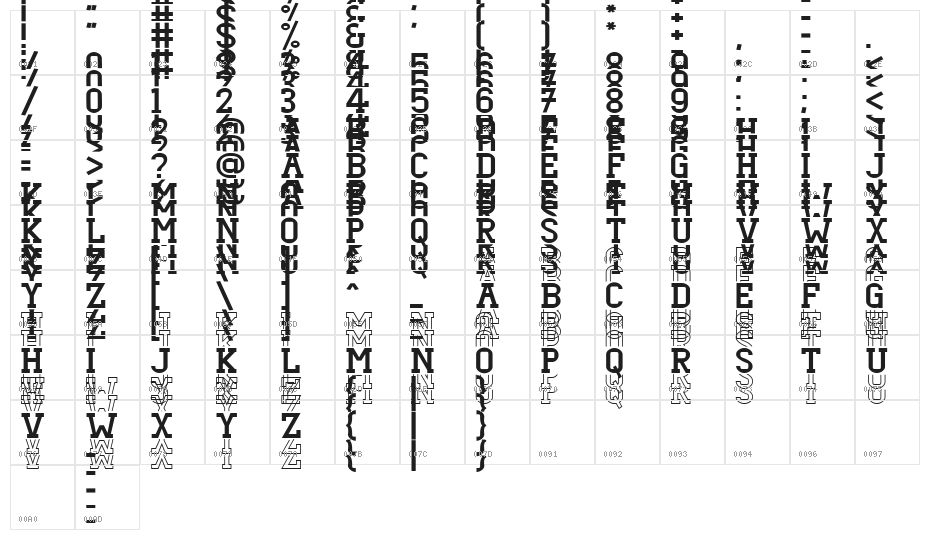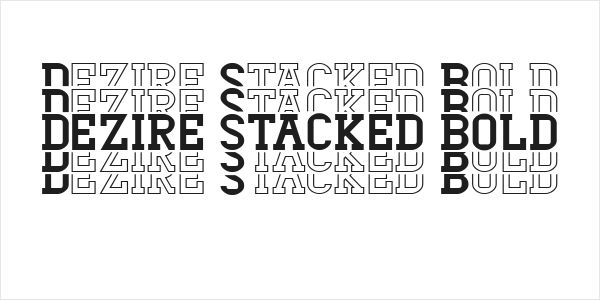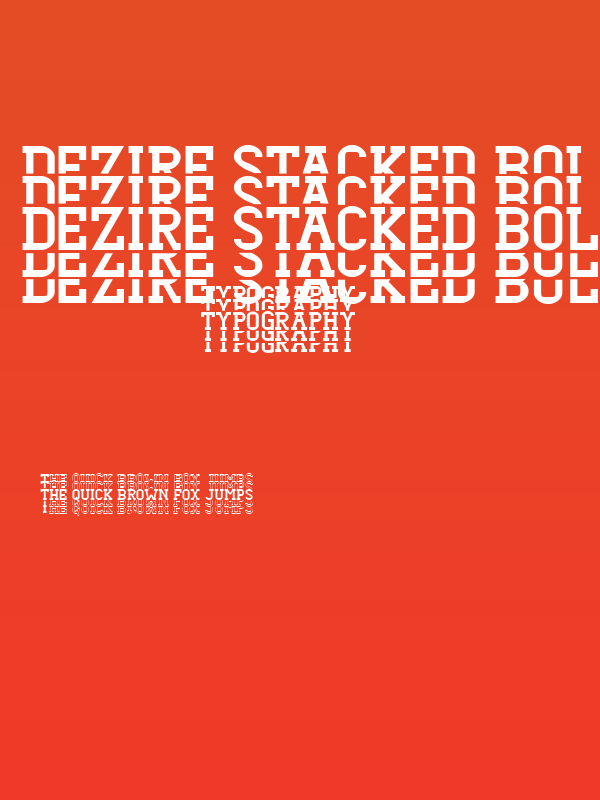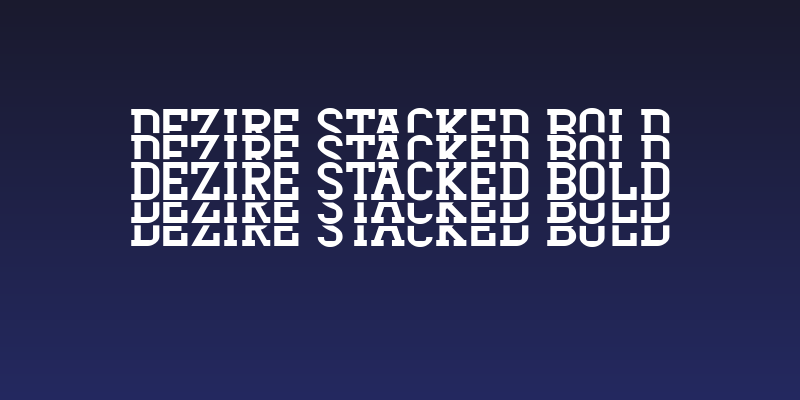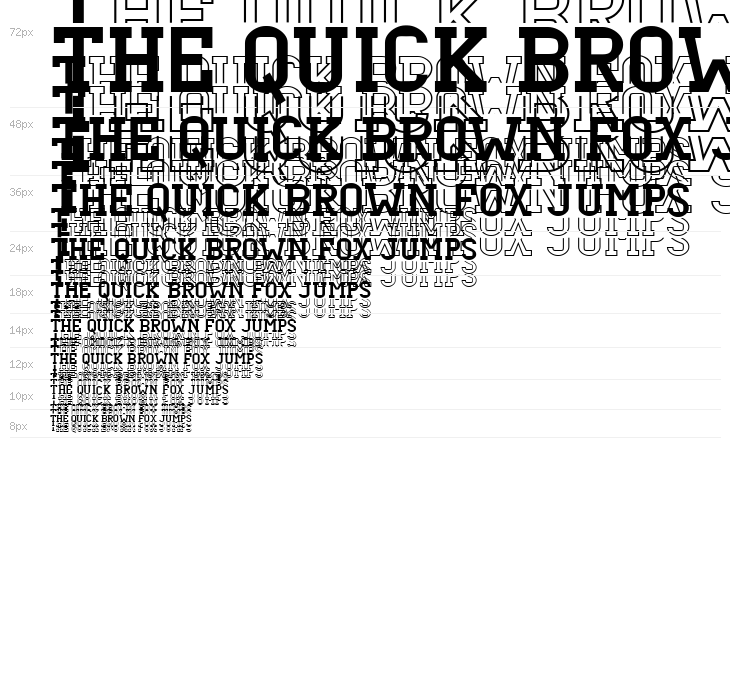
Dezire Stacked Bold Font
Dezire Stacked Bold Description
This font features a bold and impactful design with a stacked appearance, creating a unique visual effect. The characters are tightly packed, giving a sense of density and strength. The uppercase letters are particularly striking, with a geometric and structured form that commands attention. The numerals and special characters maintain this boldness, ensuring consistency across all elements. This font's style is modern and assertive, making it suitable for projects that require a strong visual presence.
| Proposed Projects | Ideal for posters, headlines, branding, and any design needing a strong, eye-catching typeface. |